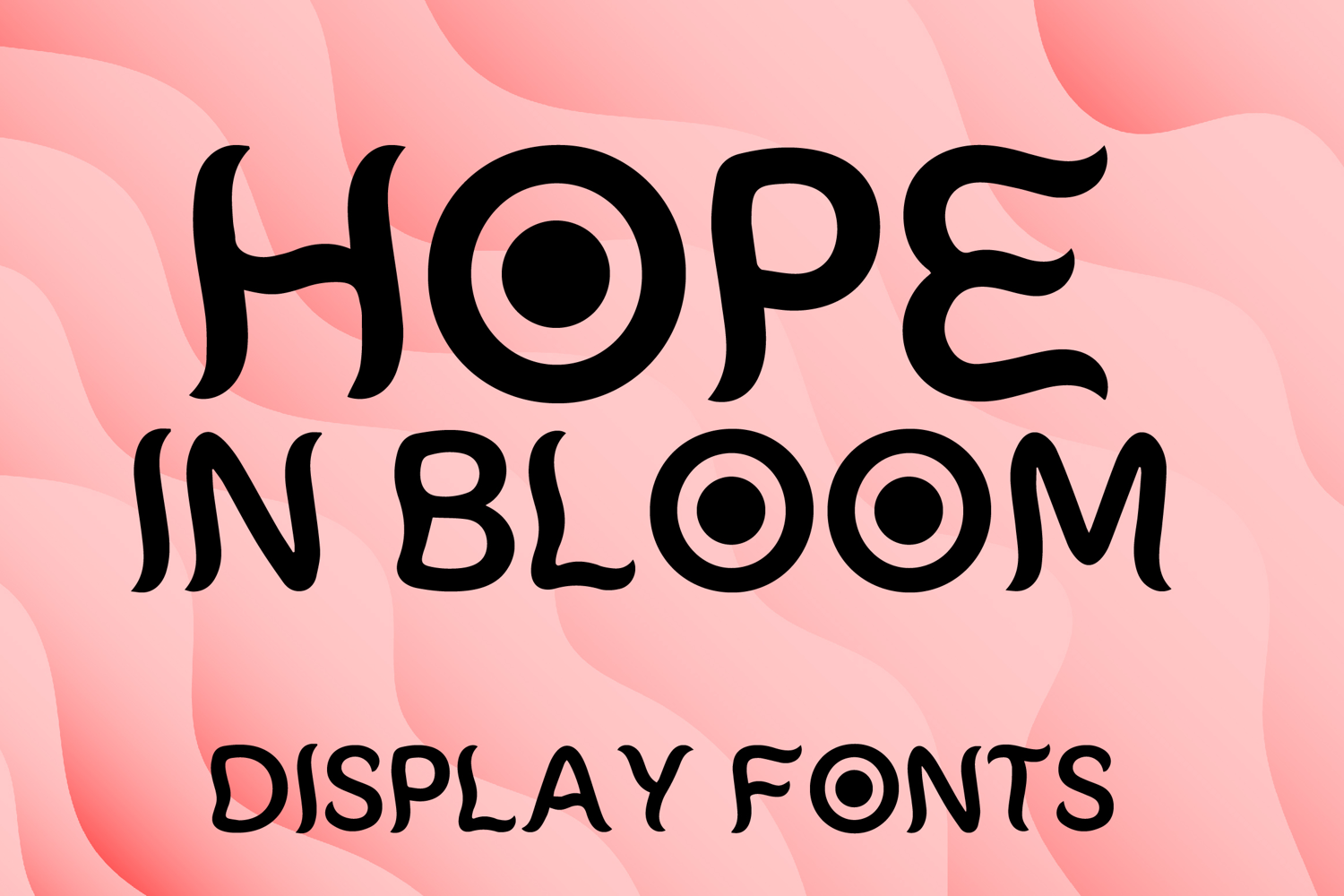
HOPE IN BLOOM
HOPE IN BLOOM is a whimsical decorative display font with a playful retro-inspired style and soft artistic charm. Its uppercase letterforms feature rounded strokes, wavy contours, and quirky organic details that create a warm, cheerful, and eye-catching look. Designed with uppercase letters A–Z and numbers 0–9, HOPE IN BLOOM is perfect for branding, posters, packaging, invitations, logos, social media graphics, and creative projects that need a joyful and memorable statement.